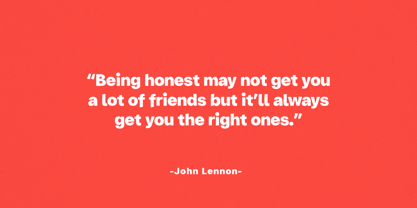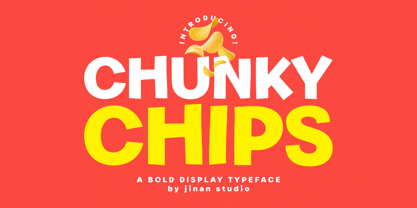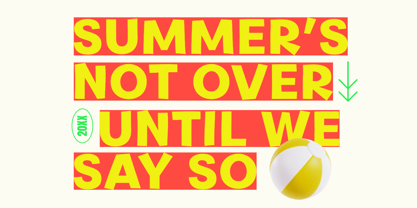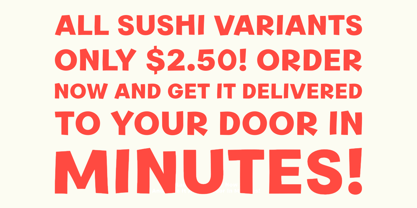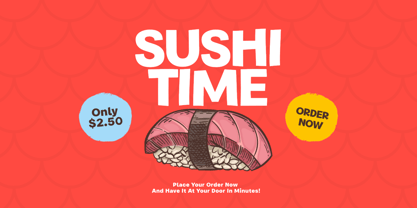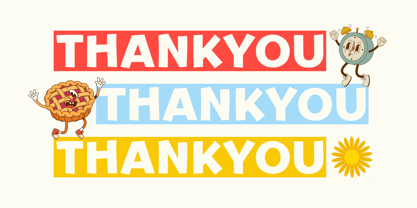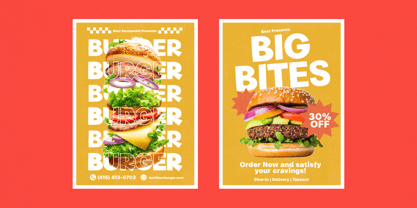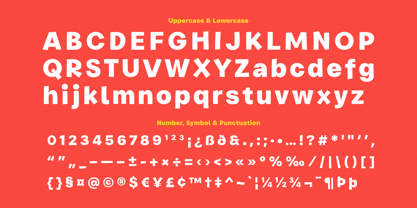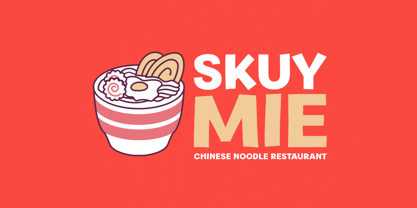
Chunky Chips
by Jinan Studio
The Chunky Chips Font Family was designed by Andi Syahdang, Ainun Jinan and published by Jinan Studio. Chunky Chips contains 1 styles.
Say hello to Chunky Chips, a bold and chunky display typeface that’s full of flavor! This playful font packs a punch with its thick, confident shapes and cheerful vibe—perfect for making your food branding pop. Designed to bring joy and appetite to your designs, Chunky Chips is your go-to font for snack packaging, restaurant logos, food posters, and anything that needs a fun and eye-catching touch. Each letter feels lively and dynamic, just like the crispy chips it’s named after! Whether you’re crafting a mouthwatering menu, playful product label, or bold headline, Chunky Chips will make your design look absolutely irresistible. Features A set of uppercase and lowercase glyphs Number, symbol, and punctuation Multilingual Support
About Jinan Studio
Jinan Studio, founded by Ainun Jinan, is a font studio based in Makassar City, Indonesia. With a focus on handmade typography. With three years of experience, the studio creates unique, visually captivating, and expressive fonts that can be used in various design projects. Their commitment to craftsmanship and attention to detail sets them apart, while their personalized approach and dedication to customer satisfaction make them a reliable choice for clients.